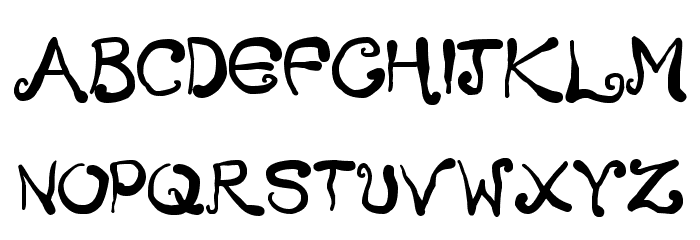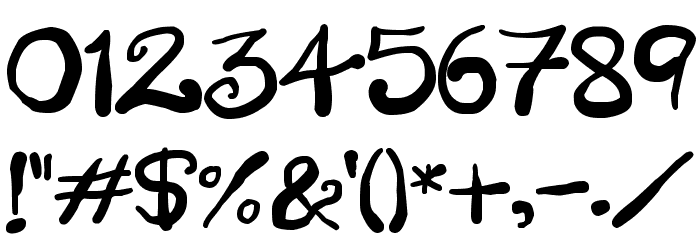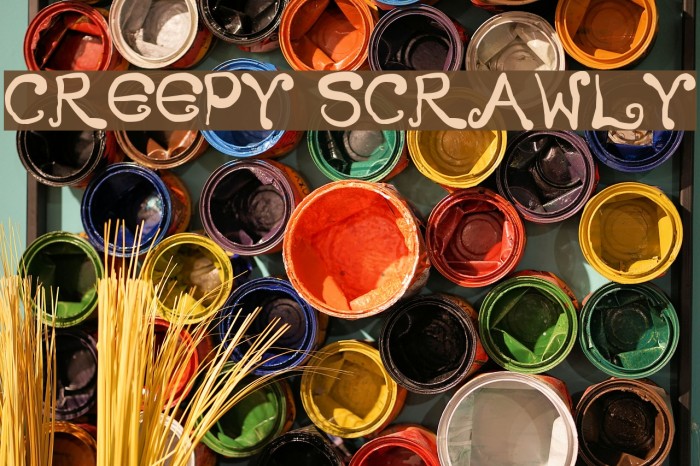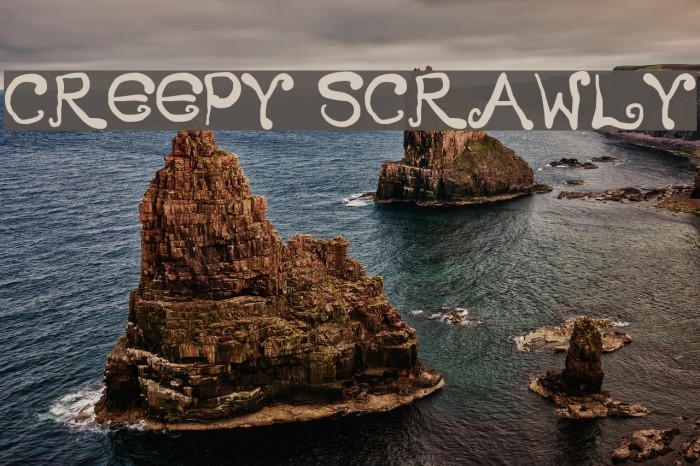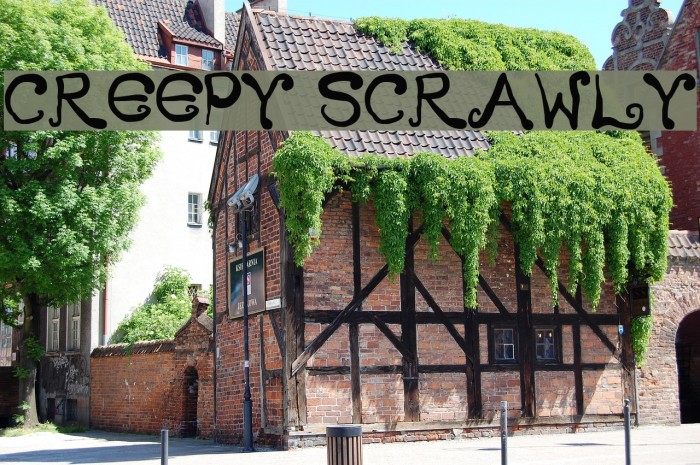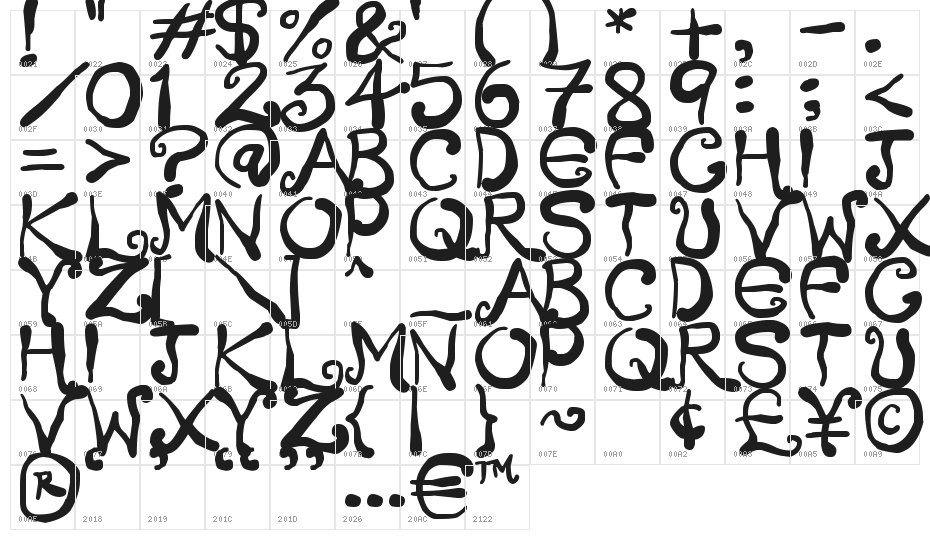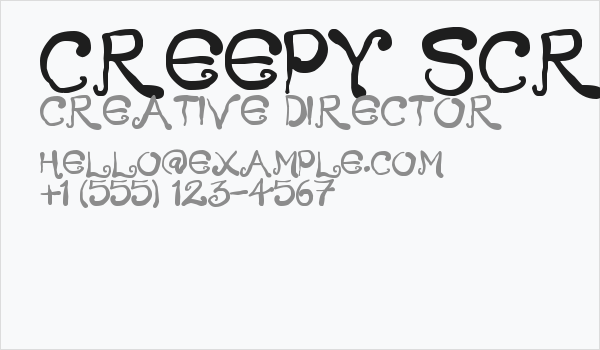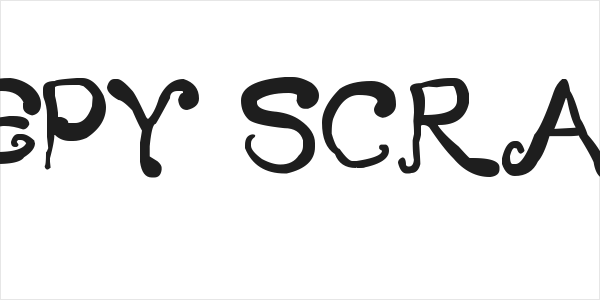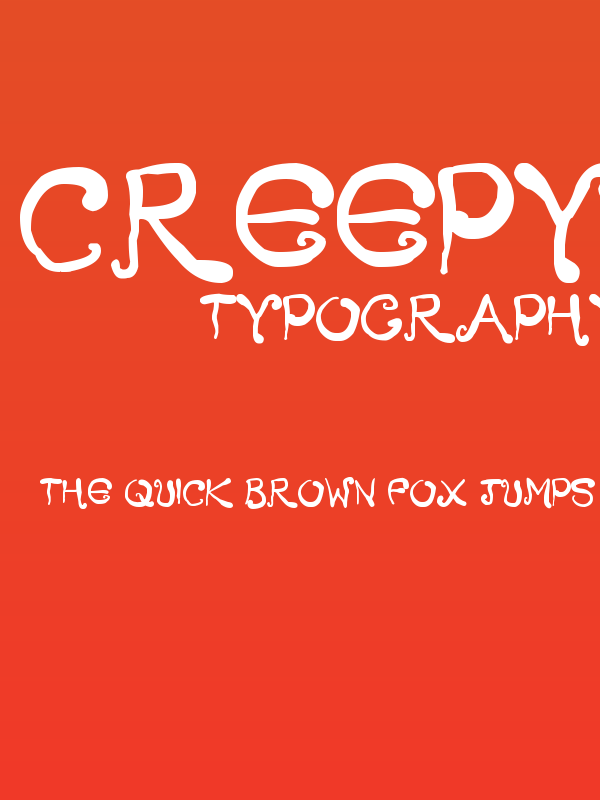
Creepy Scrawly Font
This font features a whimsical and eerie design, with each character exhibiting a playful yet unsettling twist. The strokes are uneven, giving a hand-drawn appearance that adds to its quirky charm. The uppercase and lowercase letters maintain a consistent style, with exaggerated curves and loops that create a sense of movement. The numbers and special characters follow the same design principles, ensuring a cohesive look across all elements. The overall effect is both playful and slightly sinister, making it perfect for projects that require a touch of the unusual.
A whimsical and eerie font with playful, hand-drawn characters.
- Proposed Projects: Ideal for Halloween-themed designs, spooky invitations, children's books, or any project needing a quirky, eerie touch.